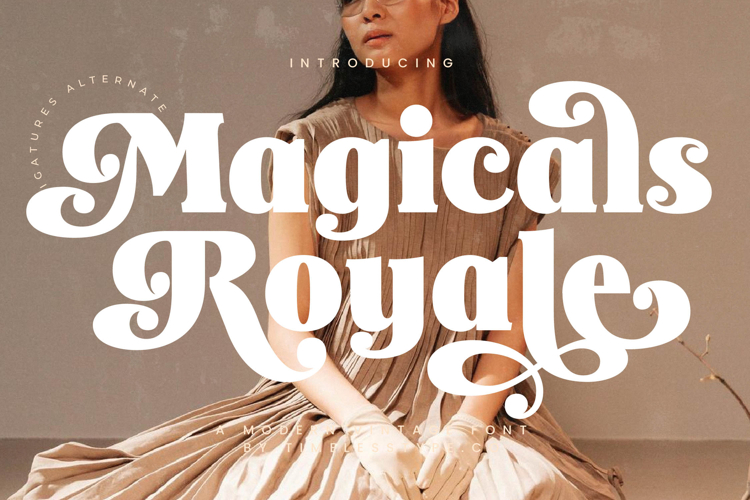
Magicals Royale - Modern Vintage Font
Magicals Royale Typeface is a bold decorative serif font that combines vintage charm with modern artistry. Featuring dramatic swashes, ornate curves, and expressive ligatures, this typeface exudes luxury, elegance, and theatrical flair. Each character is crafted with strong weight and detailed flourishes, making the font ideal for creating striking typographic statements. Its unique balance of boldness and decorative refinement ensures it stands out in both print and digital media, perfect for projects that require a sense of grandeur and timeless sophistication.